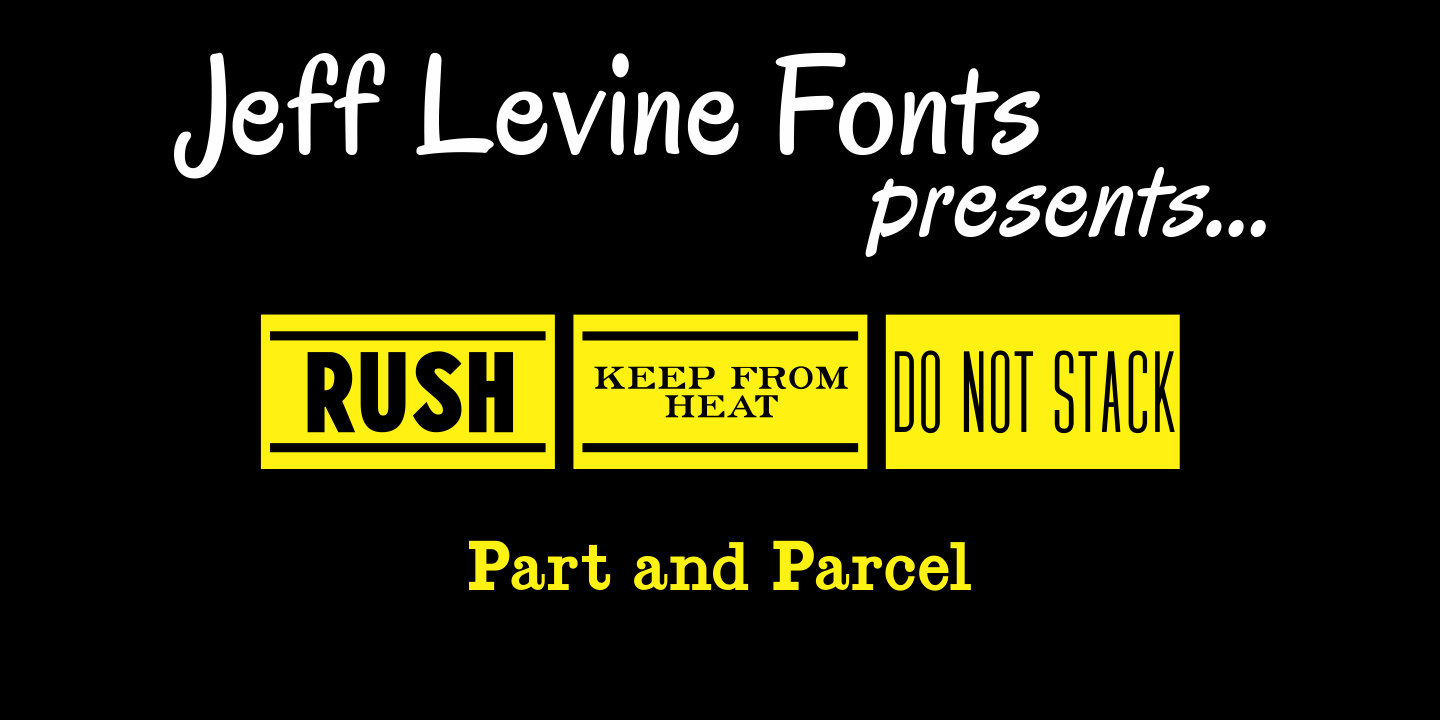
Part and Parcel
Part and Parcel JNL is a collection of twenty-six packaging and shipping labels in a retro style. Use them for spot illustrations or scale them to make actual labels. Please refer to the license agreement for specific use in commercial applications regarding derivative or salable works.